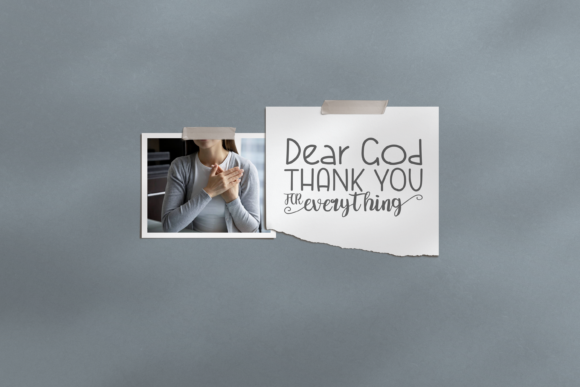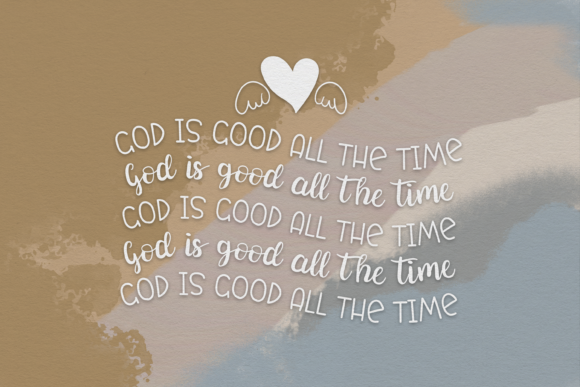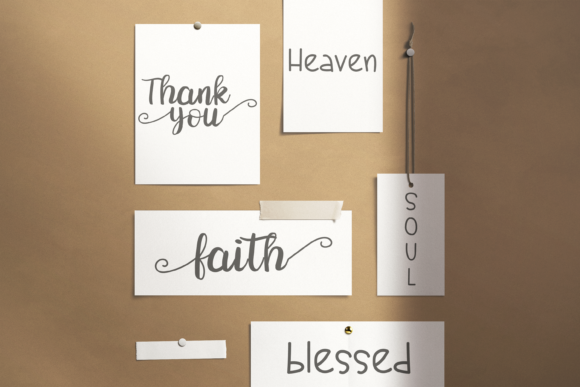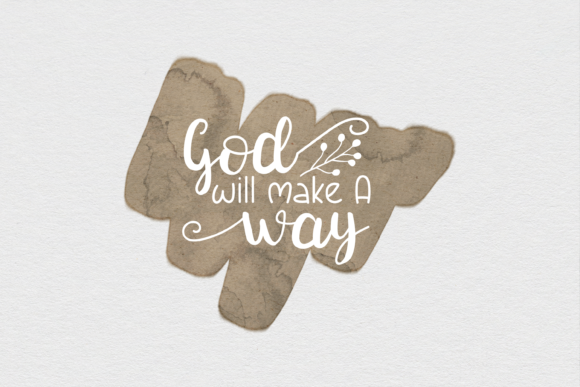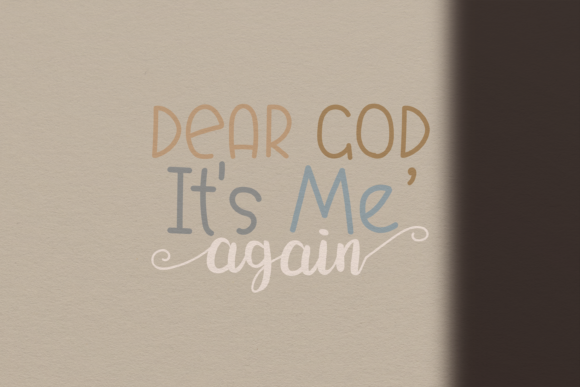
Introducing Dear God Duo Font: Elevate Your Crafts with Chic and Cheery Handwritten Style
Are you a designer or crafter looking for the perfect font to add a touch of elegance and playfulness to your projects? Look no further than the Dear God Duo Font. This beautiful duo consists of two complementary handwritten styles that are designed to work together in harmony, creating a unique and visually appealing aesthetic.
What Makes Dear God Duo Font Special?
The Dear God Duo Font is a carefully crafted combination of two lovely handwritten styles that are meant to complement each other perfectly. Whether used together or separately, these fonts are ideal for adding a chic and cheery touch to your crafts, designs, and creative projects. The duo’s versatility makes it perfect for a wide range of applications, from digital designs to print materials.
Key Features of Dear God Duo Font
- PUA Encoded: The Dear God Duo Font is PUA (Private Use Area) encoded, which means you can easily access all the glyphs and swashes. This feature makes it simple to get the most out of your font, allowing you to create unique and intricate designs.
- Handwritten Style: The fonts feature a beautiful, handwritten style that adds a personal touch to any project. The elegant and flowing lines create a sense of movement and energy, making your designs stand out.
- Complementary Styles: The two styles in the Dear God Duo Font are designed to work together seamlessly. You can use them together to create a stunning contrast or separately to add a consistent look to your project.
The Dear God Duo Font is an excellent choice for designers and crafters who want to add a touch of sophistication and whimsy to their projects. Whether you’re creating:
- Digital designs, such as social media graphics, blog headers, or website elements
- Print materials, like brochures, flyers, or business cards
- Crafts, including scrapbooking, card making, or DIY projects
This font duo is sure to become a staple in your design toolkit.
Tips for Using Dear God Duo Font
To get the most out of the Dear God Duo Font, here are some tips:
- Mix and Match: Experiment with using both styles together to create a unique look.
- Play with Swashes: Take advantage of the PUA encoding to access a wide range of swashes and glyphs.
- Adjust Font Sizes: Vary the font sizes to create visual interest and hierarchy in your designs.